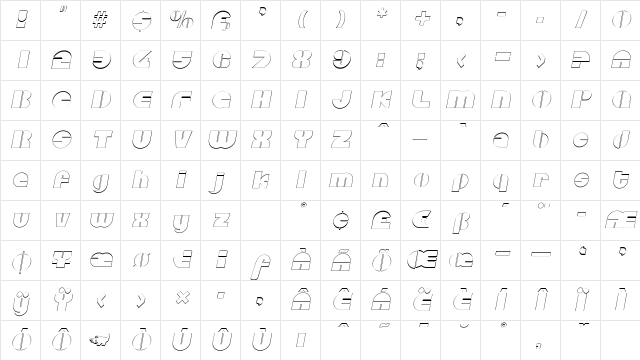
CarolineBeckerOutline is built around its visual character rather than neutral utility - its distinctive forms are designed to make an impression at display sizes. The slanted form adds forward momentum and visual energy.
Font Pairing: Pair with a clean neutral sans-serif for body copy to let CarolineBeckerOutline's character lead without overwhelming the composition.
Pro Tip: Use CarolineBeckerOutline exclusively at display sizes - it was designed to be seen, not read at length. Let a neutral companion handle body copy.